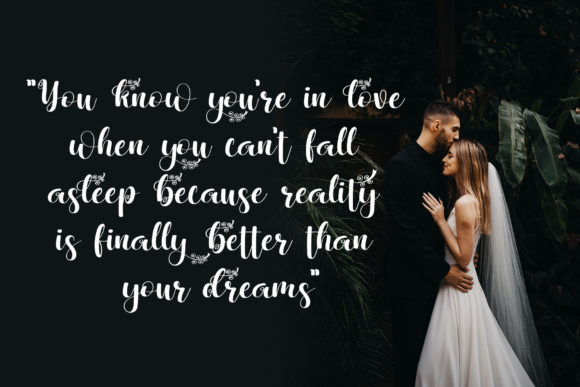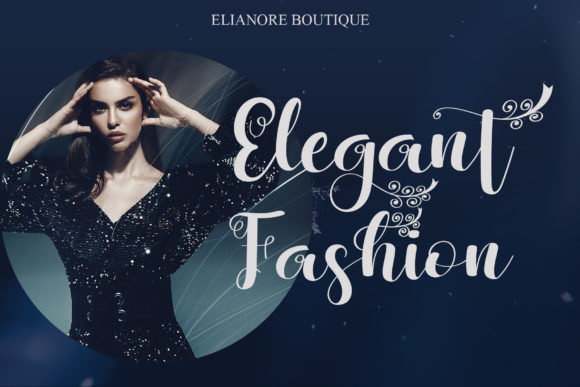
Fake Smile Font
db-ku.com - Script & Handwritten -- Fake Smile is an elegant handwritten font featuring additional whimsical swishes. It will certainly bring a loving touch to your craft or design project. This font is PUA encoded which means you can access all of the glyphs and swashes with ease!